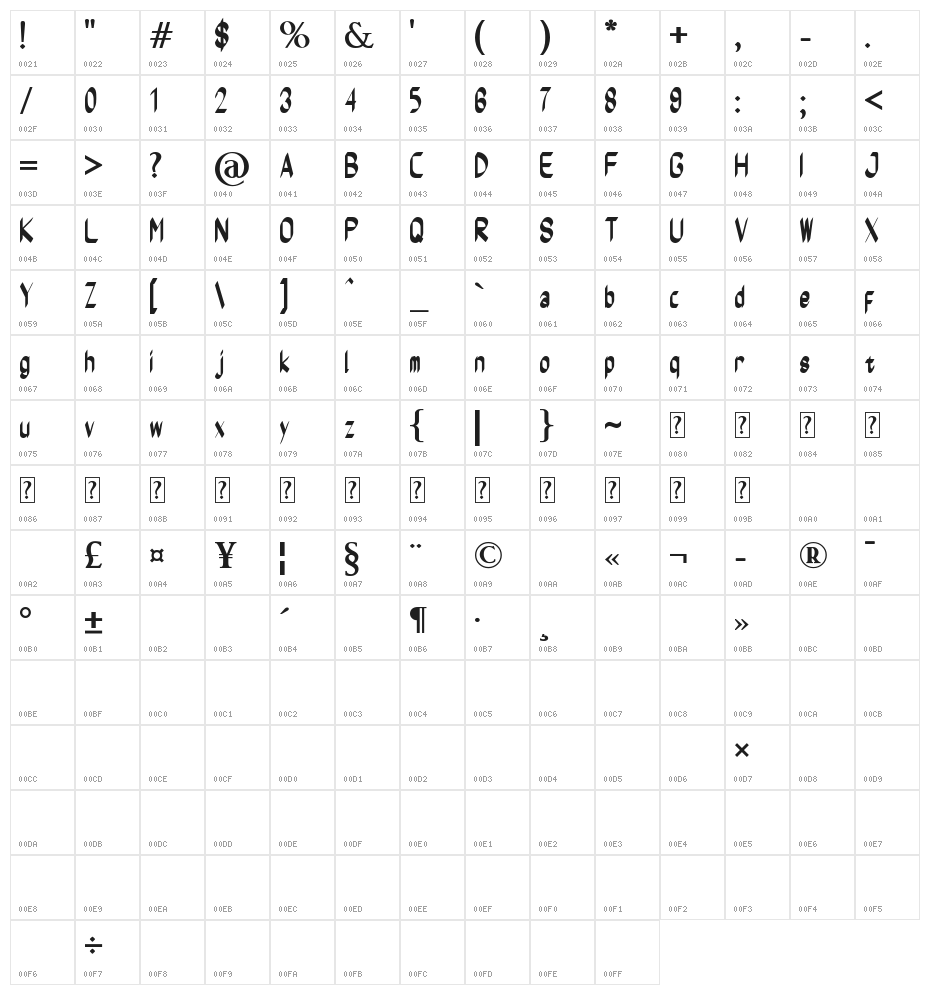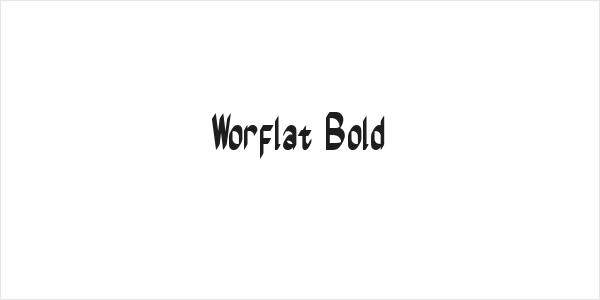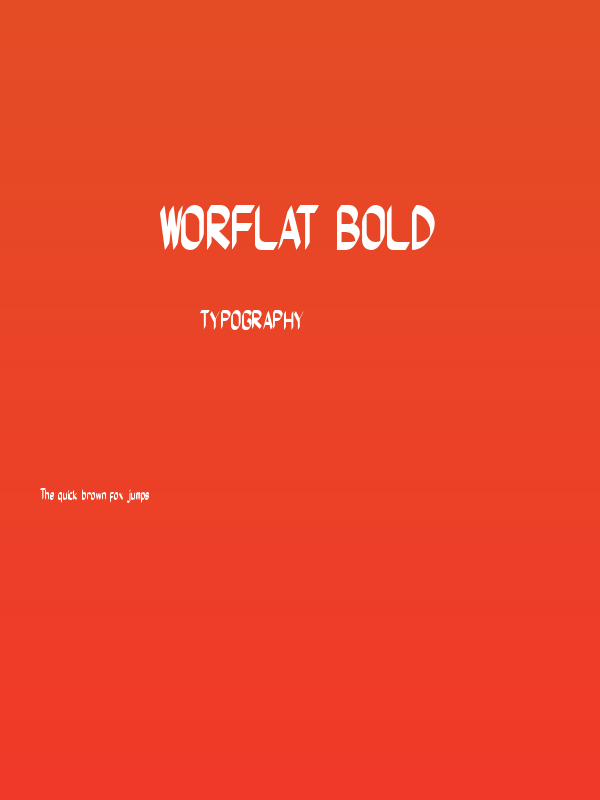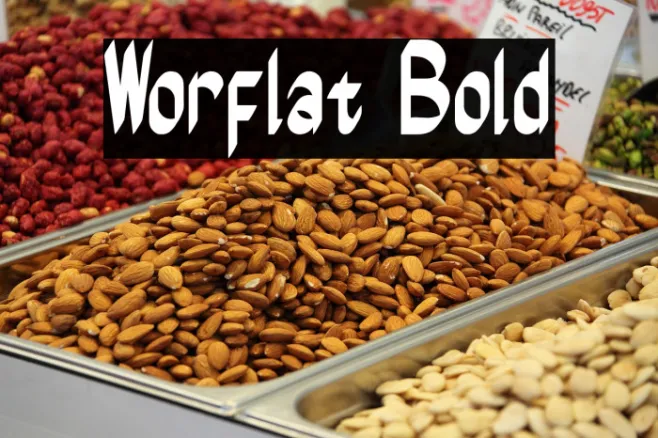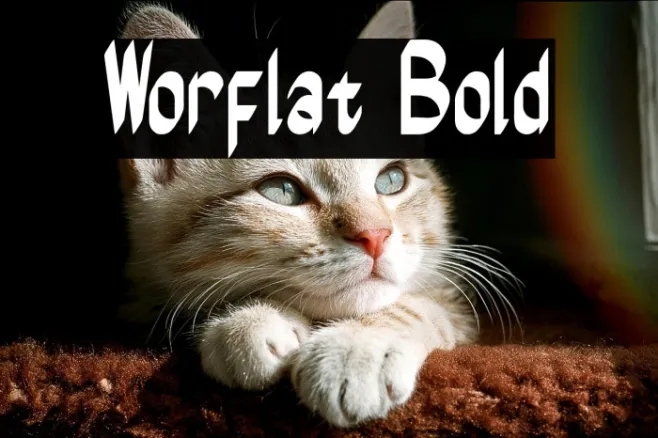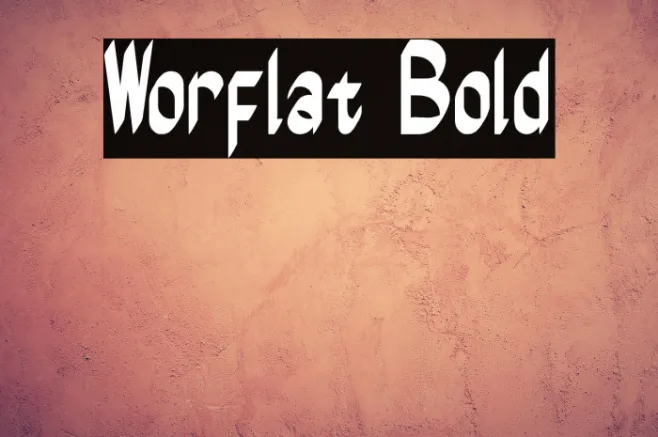
Worflat Bold Font
Worflat Bold Description
This font features a bold and dynamic style with sharp, angular edges and a futuristic appearance. The uppercase letters are particularly striking, with a geometric design that emphasizes vertical and diagonal lines. The lowercase letters maintain the same angular aesthetic, creating a cohesive look across all characters. Numbers and special characters are designed with the same boldness and angularity, making them stand out. The font's unique style makes it suitable for projects that require a modern and edgy look.
| Proposed Projects | Ideal for branding, posters, album covers, and any design needing a modern, edgy aesthetic. |